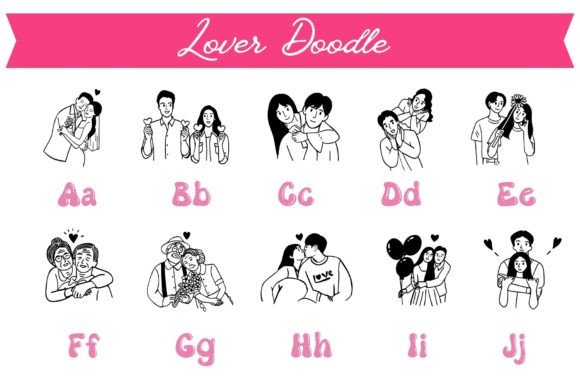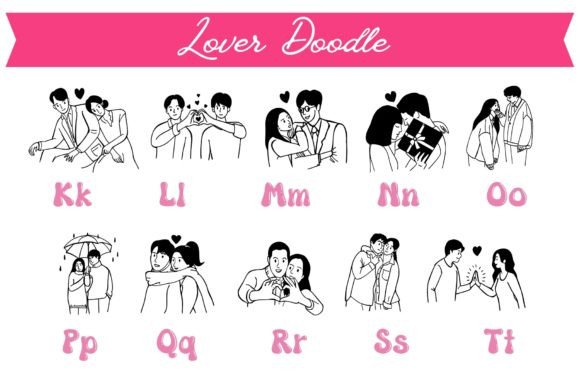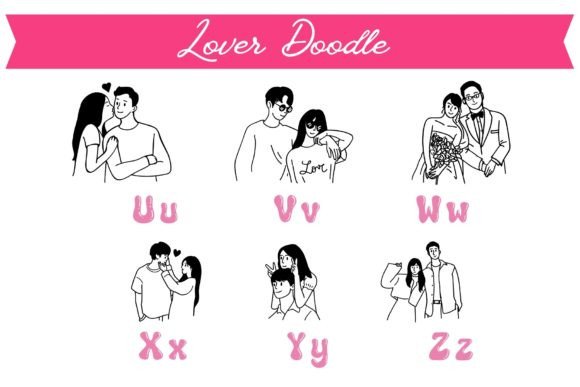
Introduction to Lover Doodle 2 Font
Remember the excitement of designing a wedding invitation, a card for your loved one’s birthday, or any other creative project that celebrates love and connection? It’s a moment where you get to be creative and add a personal touch to make it truly special. As a designer, you understand the importance of finding the right resources to bring your ideas to life.
That’s where Lover Doodle 2 Font comes in – a delightful dingbats font that’s packed with cute icons of couples, perfect for adding a touch of love and celebration to your designs. With its high-quality characters and transparent background, this font is a valuable design resource that can elevate your projects and make them even more memorable.
Key Features of Lover Doodle 2 Font
- Unique Hand-Drawn Style: Lover Doodle 2 Font features a distinctive hand-drawn style, perfect for adding a touch of creativity to any design project.
- High-Quality Design Resource: This font is a high-quality design resource, ideal for use in various creative projects, including logos, graphics, and more.
- Perfect for Personal Projects: Lover Doodle 2 Font is a great choice for personal projects, as it adds a touch of whimsy and personality to any design.
Honest Review: Lover Doodle 2 Font
As a designer, I’m always on the lookout for high-quality design resources that can elevate my creative projects. The Lover Doodle 2 Font is one such find that has impressed me with its charm and versatility. ✨
- Unique and playful characters that add a touch of whimsy to my designs
- High-quality graphics that maintain their integrity even at larger sizes
- Easy to use and customize, thanks to its transparent background option
However, I do have a few reservations about the font. ⚠️
- Some of the characters may appear a bit blurry or pixelated when enlarged
- The font could benefit from more comprehensive documentation or usage guidelines
Overall, I’m thoroughly impressed with the Lover Doodle 2 Font. Its unique charm and high-quality graphics make it a valuable addition to any designer’s toolkit. While it’s not without its limitations, I highly recommend giving it a try for your next creative project.
Tips for Getting the Most Out of Lover Doodle 2 Font
1. Experiment with different font sizes and colors to achieve the desired effect.
2. Use the font in combination with other design elements, such as images and graphics.
3. Take advantage of the font’s transparent background feature to create a unique and eye-catching design.
Common Use Cases for Lover Doodle 2 Font
1. Wedding invitations and stationery.
2. Social media posts and graphics.
3. Blog titles and headings.
Yes, the Lover Doodle 2 Font is designed to have a transparent background, making it easy to layer over other design elements. This feature allows for greater flexibility and creativity in your design projects.